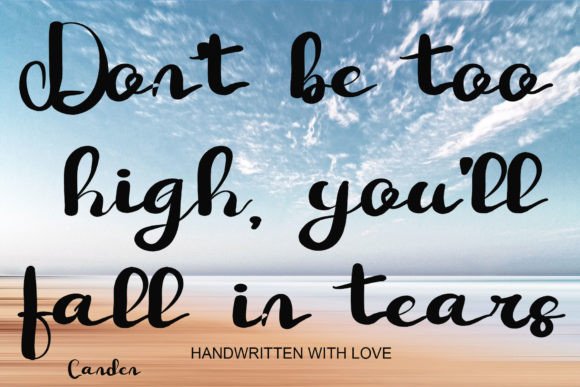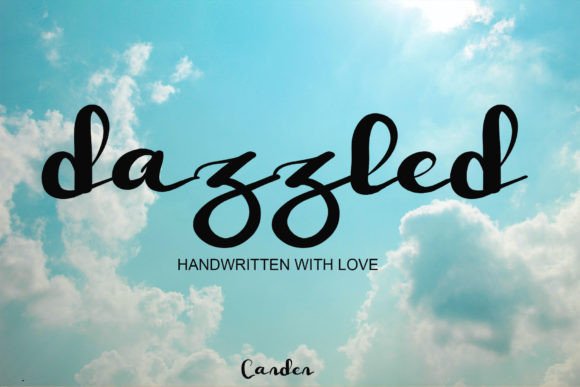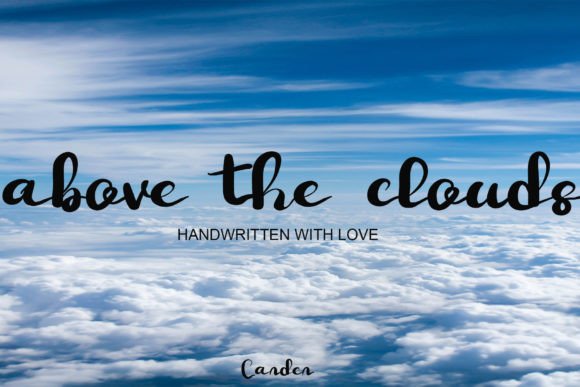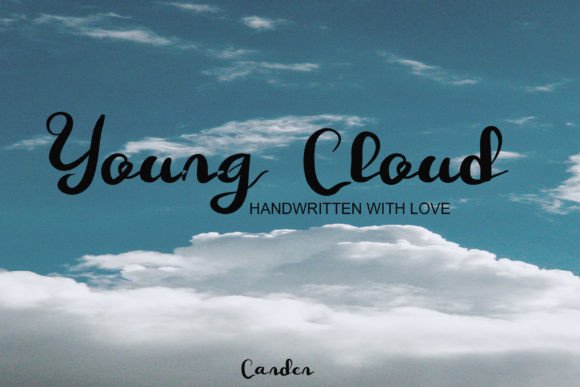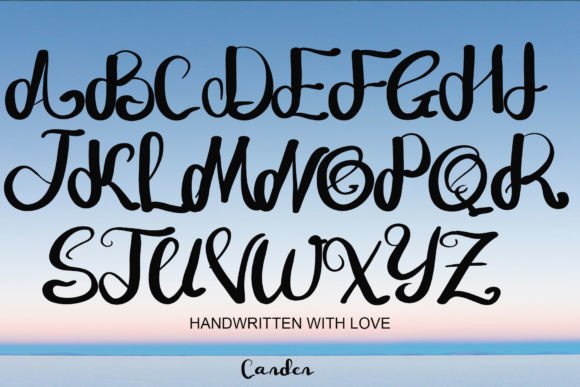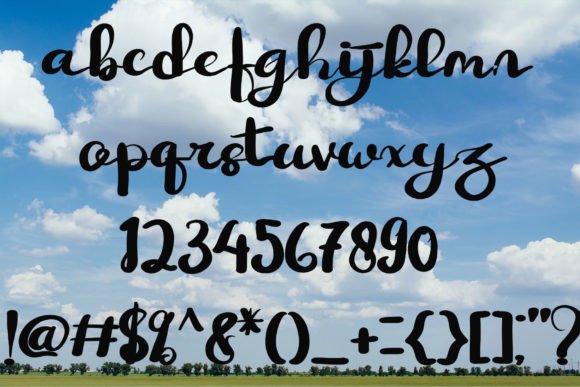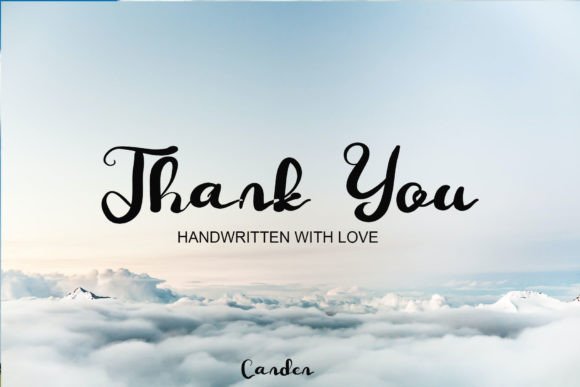
Angkasa Font
About Angkasa Font
“Angkasa” is not just a font; it’s a handwritten typeface crafted by hand using a pen tablet. This font boasts a simple and natural appearance, making it an excellent choice for websites, advertising, and a variety of design applications. Despite its simplicity, “Angkasa” retains a cool and stylish aesthetic, ensuring that it adds a touch of sophistication to any project.
The handwritten quality of “Angkasa” gives it an organic and authentic feel. Each character reflects the natural flow of handwriting, creating a typeface that is approachable and visually appealing. This makes it particularly well-suited for conveying a personal touch in digital or print designs.
The versatility of “Angkasa” shines through its adaptability to different contexts. Whether used on a website, in product advertisements, or other promotional materials, this font effortlessly integrates into various design applications. Its simplicity adds a sense of clarity, ensuring that the message is conveyed effectively.
Despite its simplicity, “Angkasa” brings a level of coolness and style to your designs. The handcrafted nature of the font adds a touch of uniqueness, making it stand out in a crowd. Imagine it enhancing the aesthetics of a minimalist website or contributing to the visual appeal of product advertisements.
In summary, “Angkasa” is not just a font; it’s a handcrafted tool that brings simplicity, authenticity, and style to your designs. Let it be the choice for conveying a natural and cool vibe in your website or advertising projects. With “Angkasa,” the simplicity becomes a strength, adding a touch of sophistication to your visual communication.